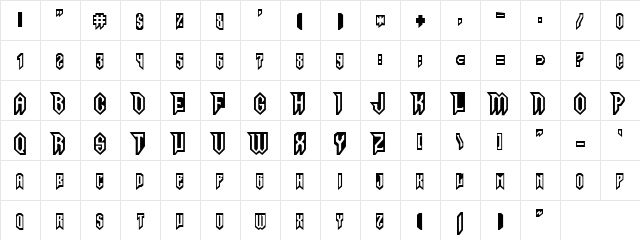
Gargoyles Normal Free Font
Gargoyles Normal
Complete Gargoyles Normal glyph index. Displaying only characters natively supported by Gargoyles Normal font.
Design Context for Gargoyles
Gargoyles is a composed and adaptable typeface that performs quietly and consistently across a wide range of design contexts.